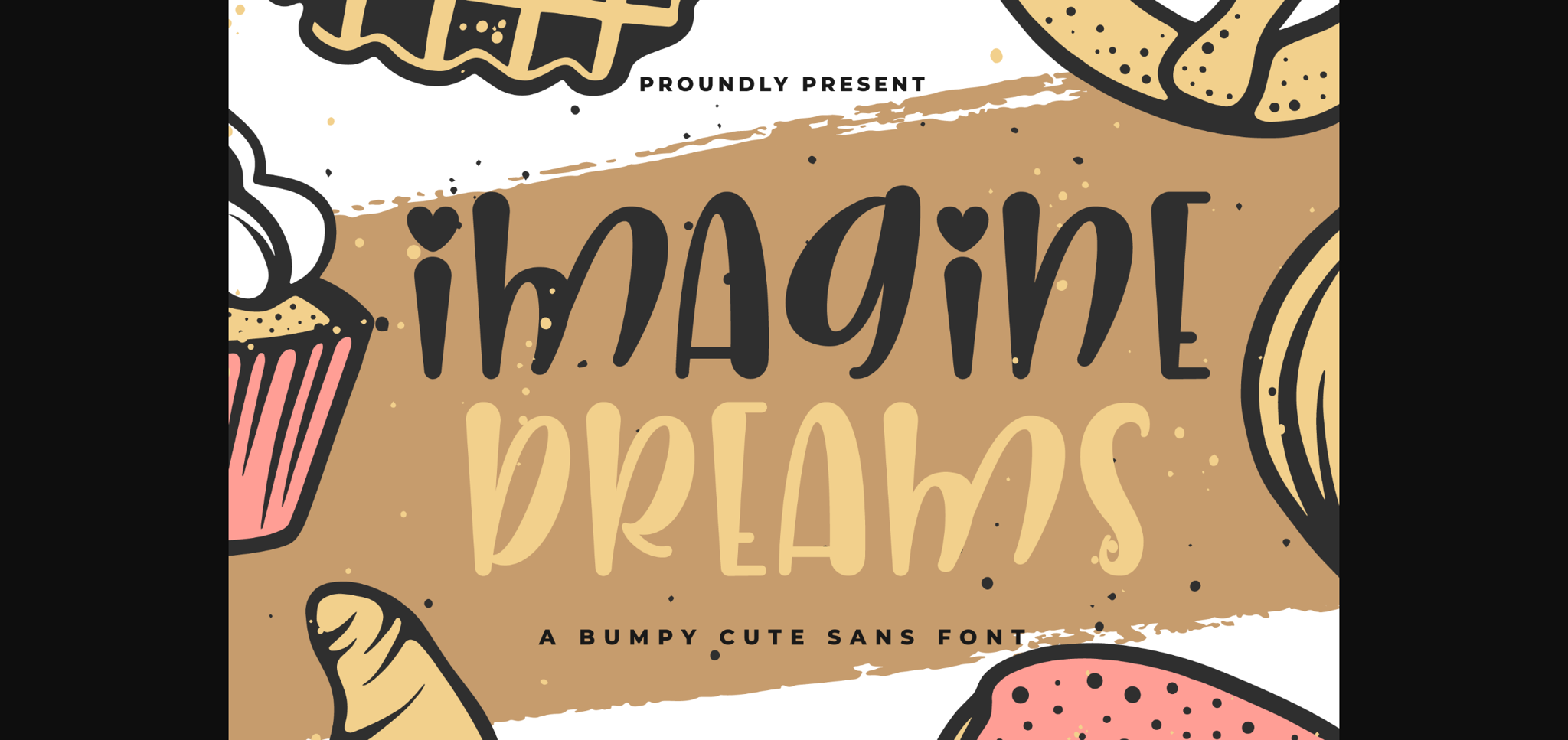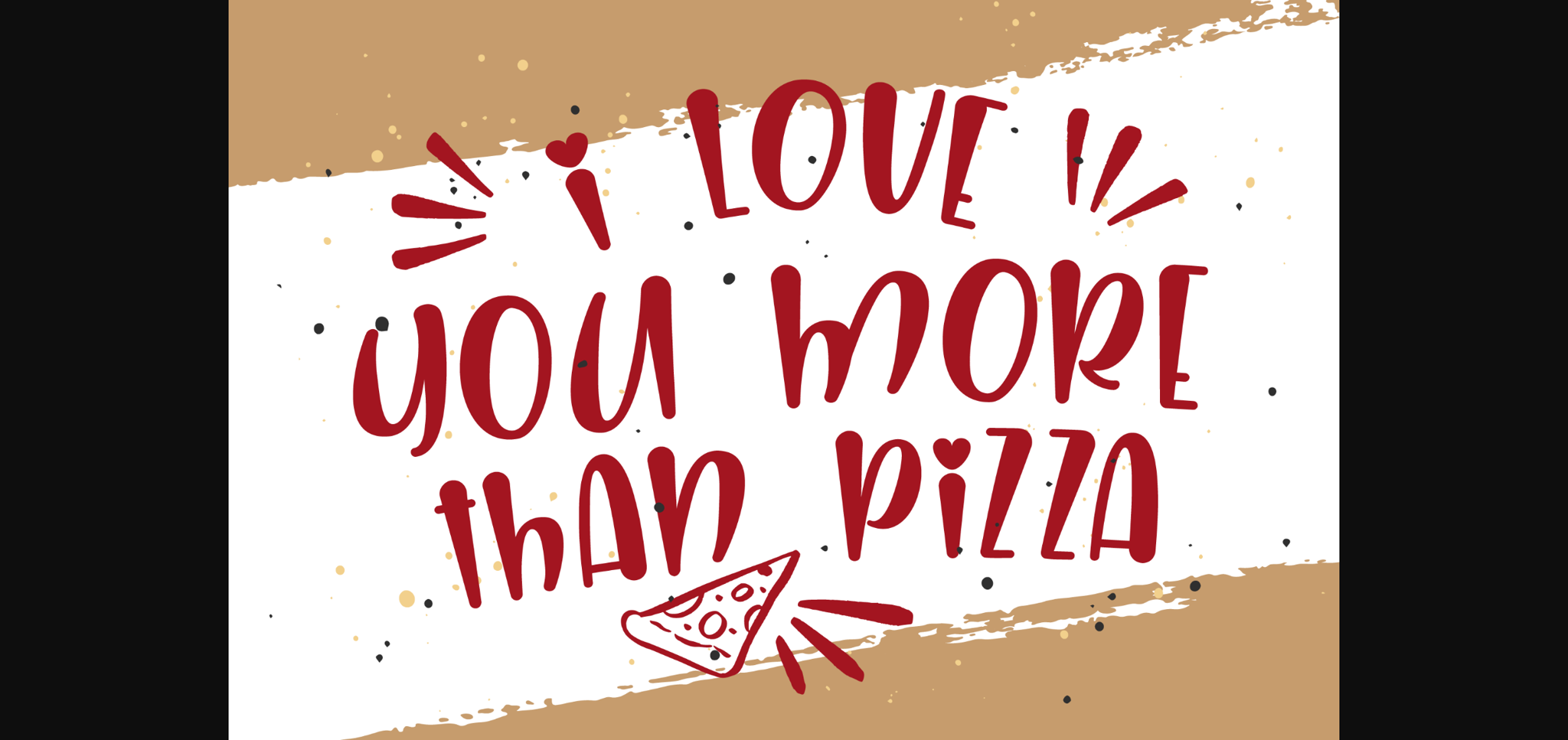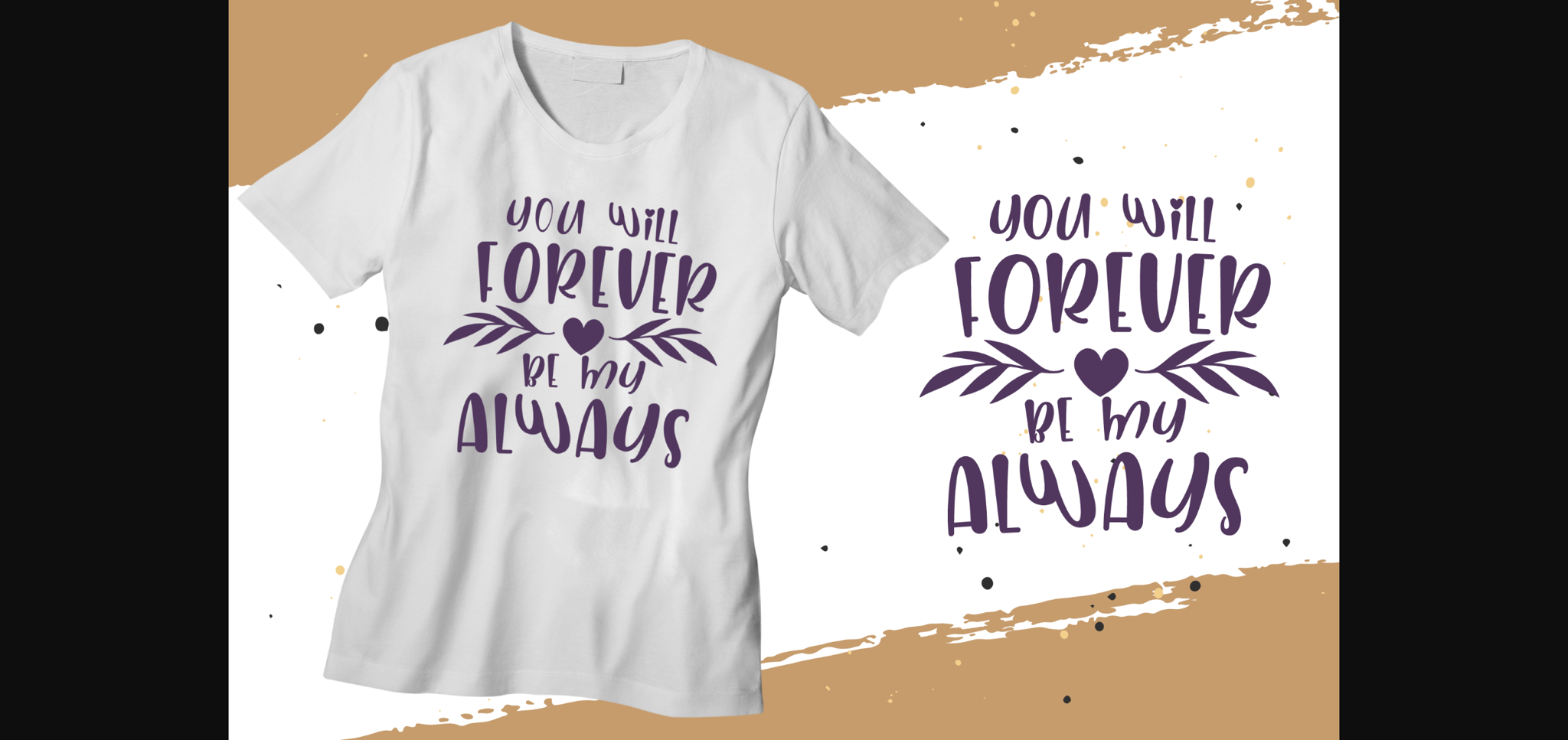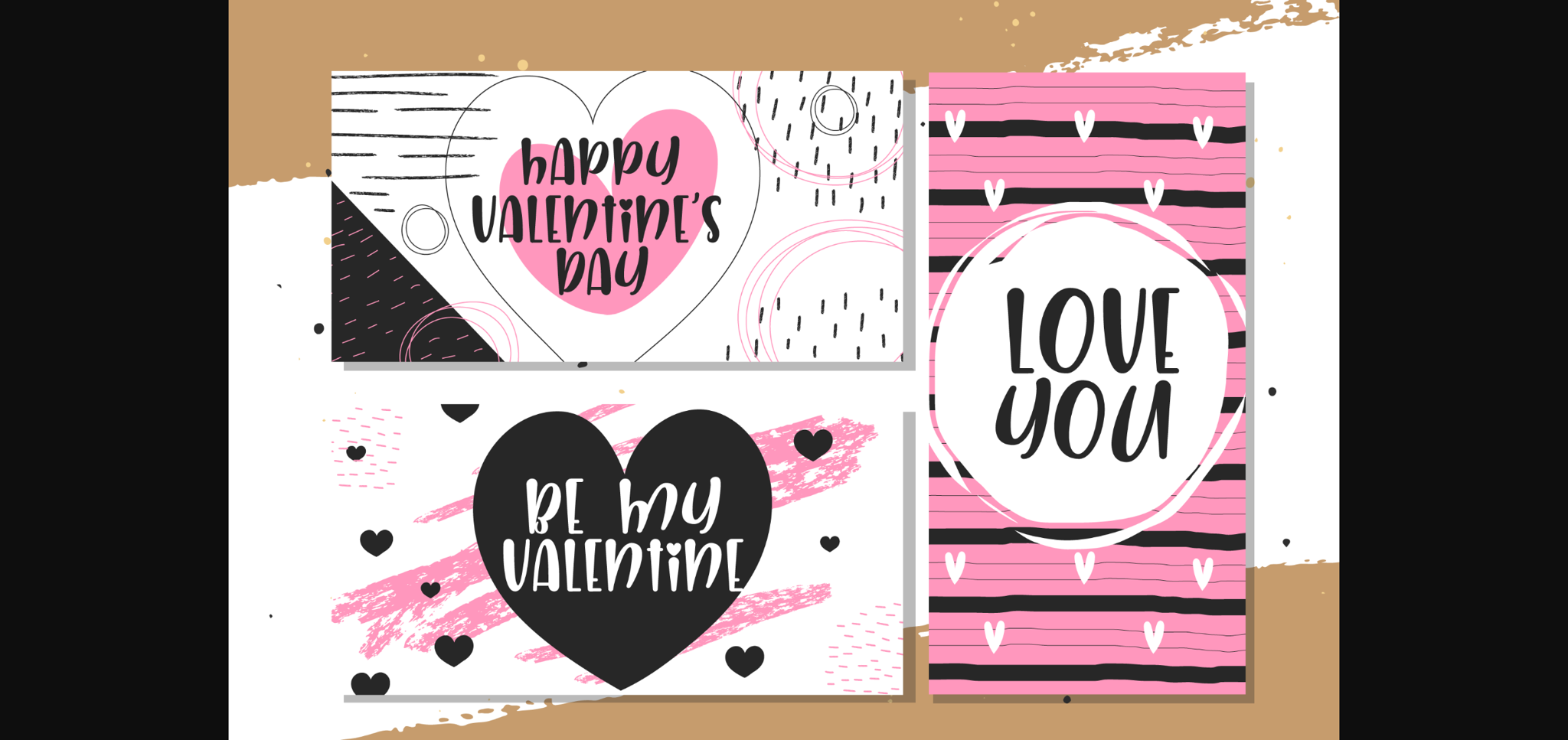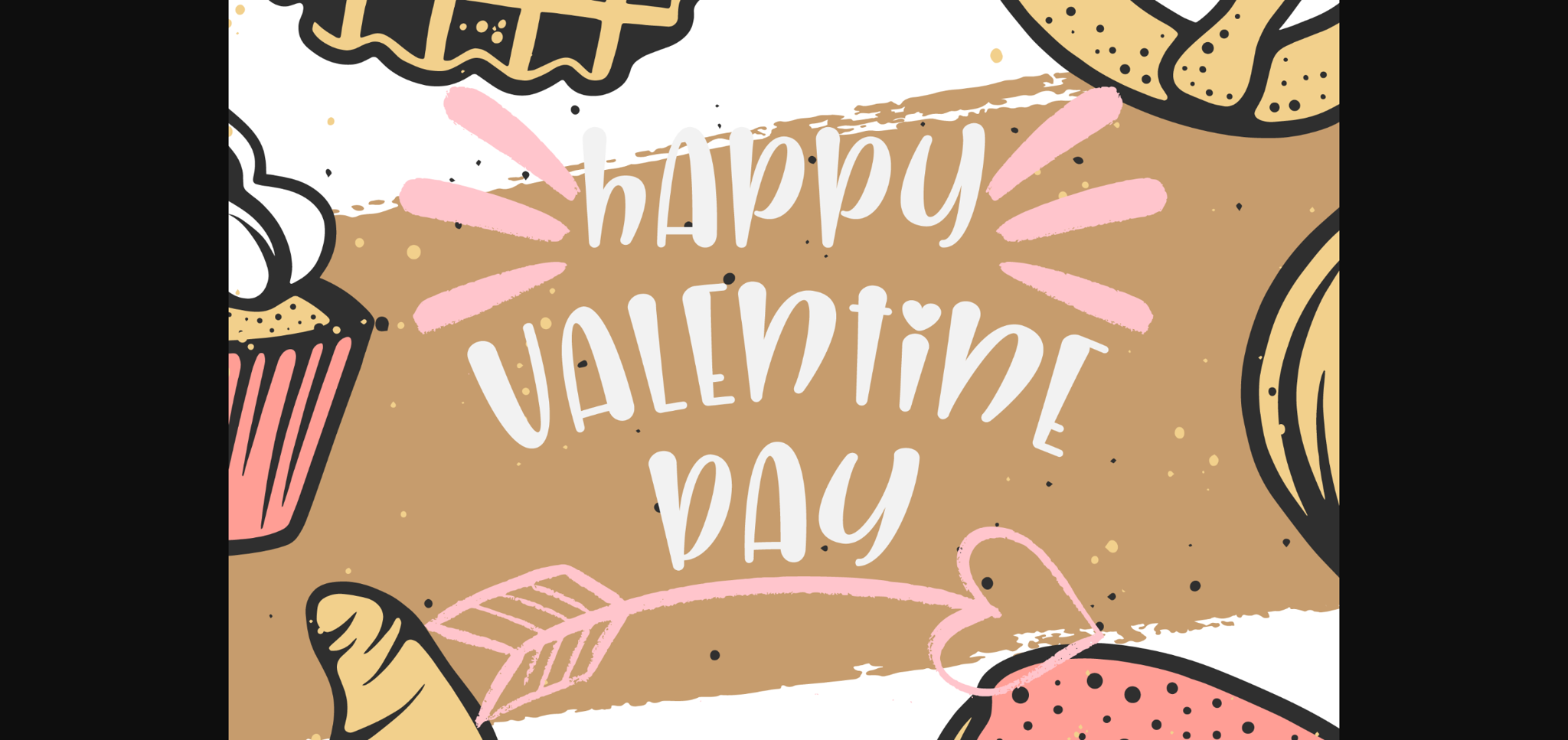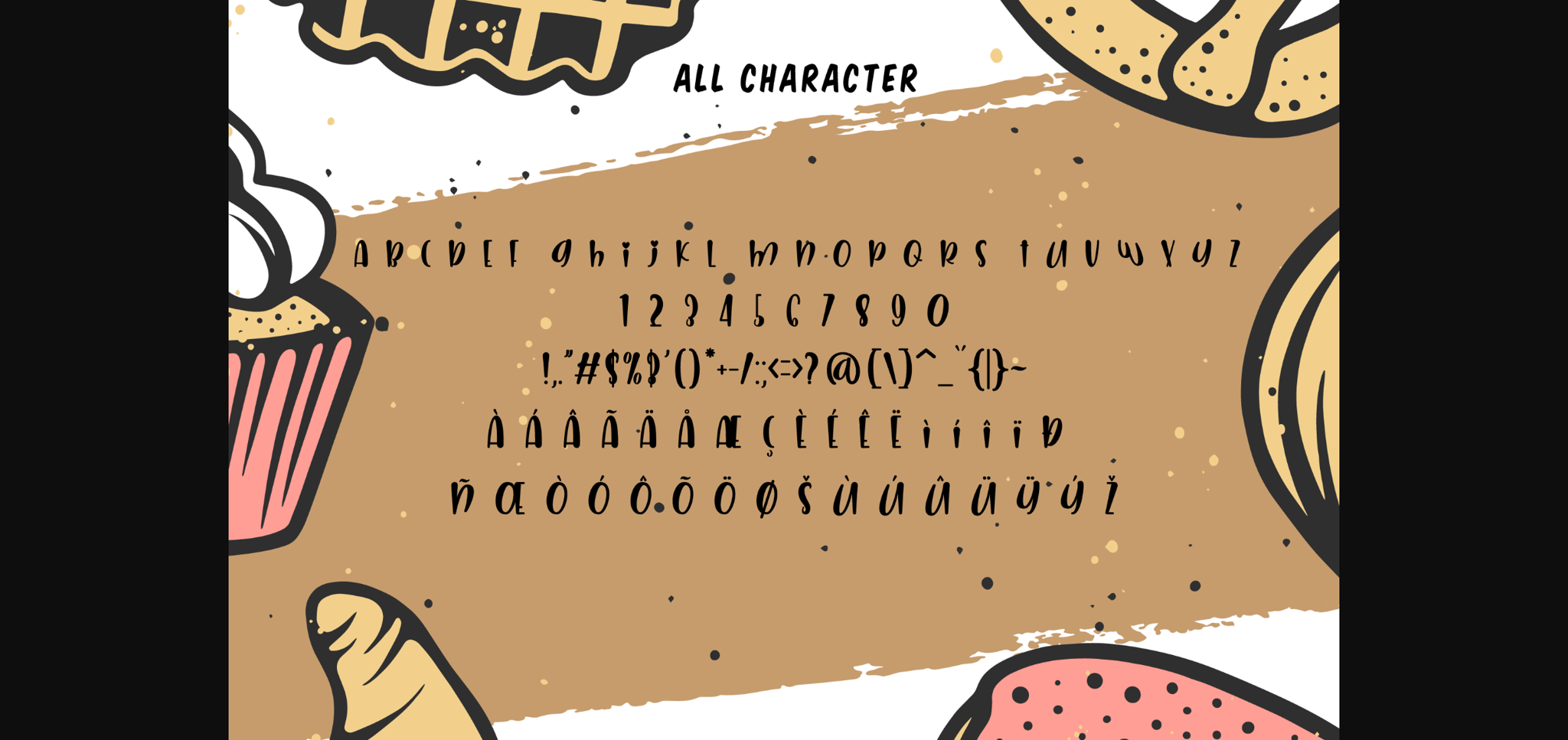
HomeSans Serif FontsImagine Dreams Font Sans Serif Fonts Imagine Dreams Font FacebookXPinterestWhatsApp 1 of 8 ... Imagine Dreams Font Poster 2... Imagine Dreams Font Poster 3... Imagine Dreams Font Poster 4... Imagine Dreams Font Poster 5... Imagine Dreams Font Poster 6... Imagine Dreams Font Poster 7... Imagine Dreams Font Poster 8... About Imagine Dreams Font Imagine Dreams is an amazing handwritten font made with natural handwriting. The font will make your design more beautiful and powerful! DOWNLOAD NOW People also explored Qualiga Font Rainclouds Quartell Variable Solaris Font Storytelling Font Juleha Font Delight Font Good Night Font Simple Vacation Font 275 0 TagsImagine Dreams Font Previous articleGrovana FontNext articleSweet Duck Font LEAVE A REPLY Cancel reply Comment: Please enter your comment! Name:* Please enter your name here Email:* You have entered an incorrect email address! Please enter your email address here Website: Save my name, email, and website in this browser for the next time I comment. Personal Use Free Font Slice Personal Use Free Read more about this font Dandelions Bloom Personal Use Free Read more about this font Old Linoleum Personal Use Free Read more about this font Happy Garden Personal Use Free Read more about this font BLOG Transform Your Website: Elevate Your Typography with 7 Best Web Font Generators Are you ready to transform your website's typography from ordinary to extraordinary? Great! Today, we're diving into the world of web font generators, which... Modern Sans-Serif Fonts That Brands Love in 2025 Free Fonts Risk: Why Free Fonts Can Be Dangerous for Designers The 10 Best Handwriting Fonts to Add Personality to Your Designs